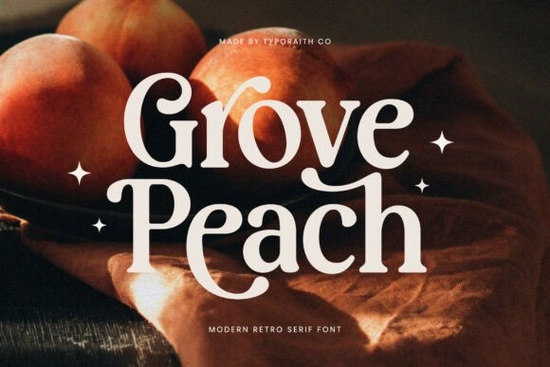
If you're looking for a serif font that feels both warmly familiar and quietly modern, Grove Peach Font fits right in especially if you’re designing for lifestyle brands, handmade goods, or small-batch print-on-demand products. It’s not overly ornate, but it carries just enough vintage character to stand out without feeling dated. Think of it as the kind of typeface you’d see on a small-batch jam label, a boutique coffee bag, or a hand-lettered wedding invitation that still looks clean on screen.
What makes Grove Peach different from other retro serif fonts?
Unlike high-contrast Didones (like Bodoni) or rigid slab serifs, Grove Peach balances softness and structure. Its curves are gentle not stiff or mechanical and its serifs have subtle, rounded terminals that give it a friendly, approachable tone. The letterforms breathe well, so it works at smaller sizes (like product tags or website body text) while still holding presence in headlines. It’s also carefully spaced and kerned, which saves time when you’re laying out packaging or social graphics.
You’ll notice details like the slightly flared ‘t’ crossbar, the open counters in letters like ‘a’ and ‘e’, and the warm weight distribution across uppercase and lowercase. These aren’t just aesthetic choices they make the font more legible and expressive in real-world use. For example, if you’re designing a seasonal collection for your Etsy shop, Grove Peach adds quiet sophistication without shouting for attention.
Where does Grove Peach work best?
It shines in contexts where warmth and authenticity matter:
- Labels and packaging for artisanal food, candles, or skincare
- Branding kits for cozy lifestyle blogs or slow-living creators
- Printables like recipe cards, planner stickers, or greeting cards
- Website headers and hero text especially paired with a clean sans-serif for contrast
- Social media posts where you want visual consistency without heavy editing
Because it’s a single-style serif font (not a full family), it’s best used intentionally not as an all-purpose workhorse, but as a deliberate accent. That said, many designers pair it with neutral sans-serifs like Inter or Montserrat for balance. If you prefer serif-on-serif pairings, consider Patcher Font, which shares some of Grove Peach’s relaxed rhythm but leans more editorial. Or try Aretha Font for a bolder, more confident contrast in dual-tone branding.
How does it compare to similar fonts on Creative Fabrica?
Grove Peach sits comfortably between playful and polished. It’s softer than Fresh Tomato Font, which has sharper angles and more assertive contrast great for bold signage but less suited to delicate applications. Compared to Decorative Modern Font, Grove Peach avoids exaggerated swashes or decorative ligatures, making it more versatile for everyday design tasks.
If you’ve tried Grove Peach Font and liked its mood but want something with alternate characters or stylistic sets, you might explore fonts like Marlowe or Lavonne though those aren’t part of this collection. For now, Grove Peach offers what many designers actually need: a focused, well-drawn serif that performs consistently across formats.
Real examples from actual users
A small-batch soap maker used Grove Peach for her new “Sunset Orchard” line pairing it with muted peach and sage tones. She applied it to jar labels, Instagram story highlights, and her Shopify banner. Feedback? Customers kept commenting on how “inviting” and “thoughtful” the branding felt.
Another user a digital planner designer used it for section headers in a printable self-care journal. She found it softened the overall look compared to sharper serifs, helping the pages feel restful rather than busy.